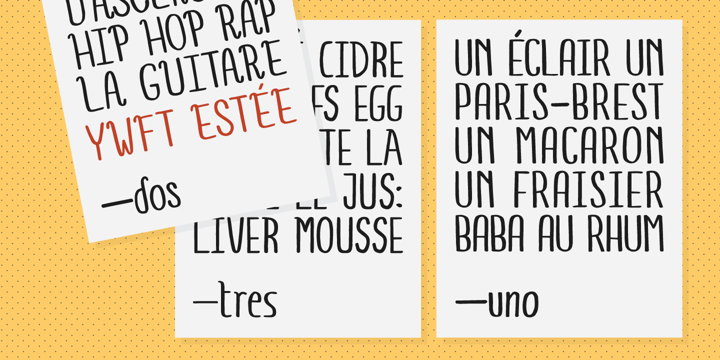
YWFT Estée
YWFT Estée by YouWorkForThem
YWFT Estée Font Family was published by YouWorkForThem. YWFT Estée contains 3 styles and family package options. More about this family
About YWFT Estée Font Family
The beauty sector is booming more than ever before, with Forbes reporting $445 billion (in sales) in the cosmetic industry as of May, 2017. Inspired by those companies driven to success in the name of glamour, YouWorkForThem presents Estée, an homage to modern femininity. Sweet details combined with strong architecture, YWFT Estee takes an organic, shabby chic approach to its design. Estee evokes the qualities we most admire in the women we know and love, balancing their playfulness, their softness, and their unwavering strength and resilience through hand-drawn letterforms. Available in three styles, YWFT Estée is well suited for fashion advertising, logos, product packaging, branding, labels, and displays that need a casual, feminine touch. Its organic nature makes it an excellent choice for the food industry, particularly local farm products and homegrown produce. Estée's easygoing demeanor would also find itself quite at home in greeting cards, social media imagery, and even children's books.